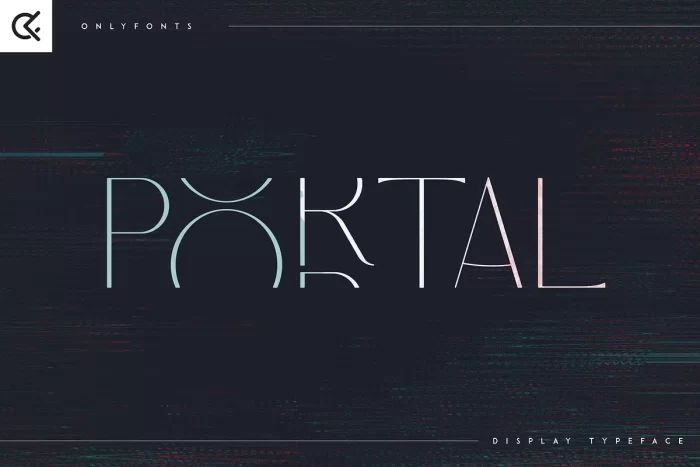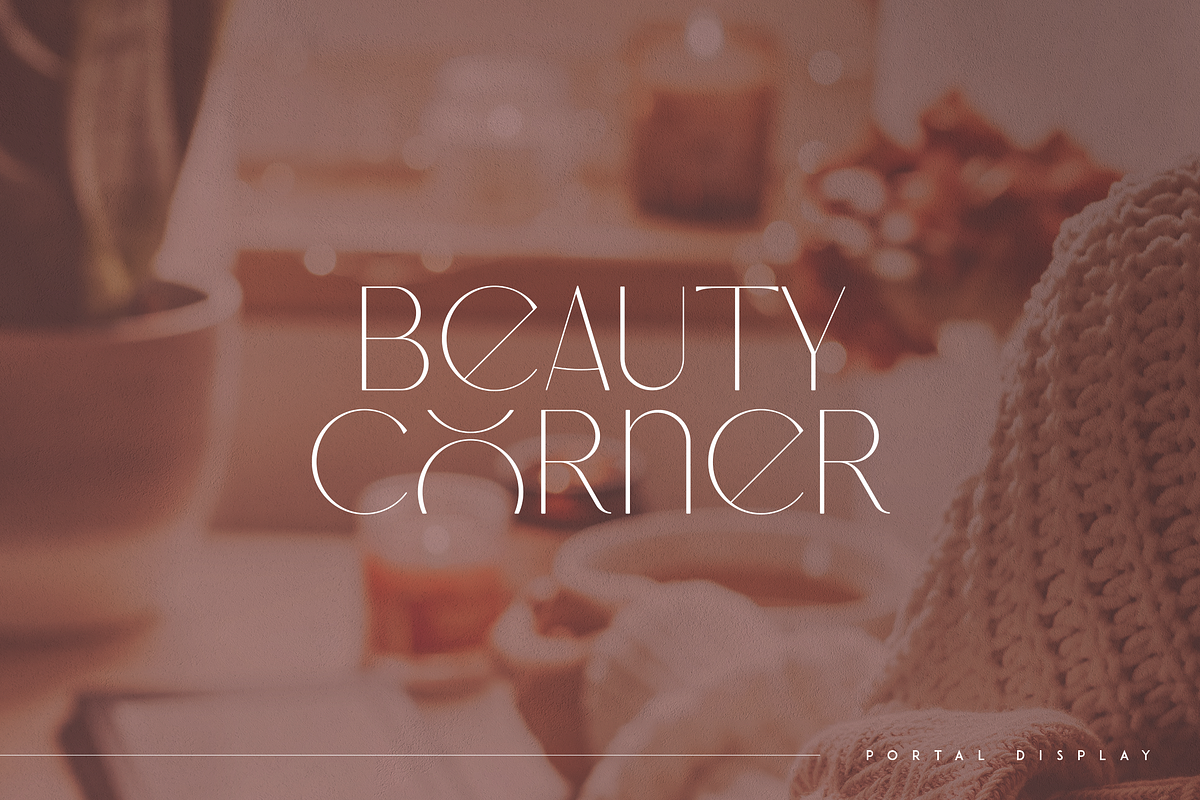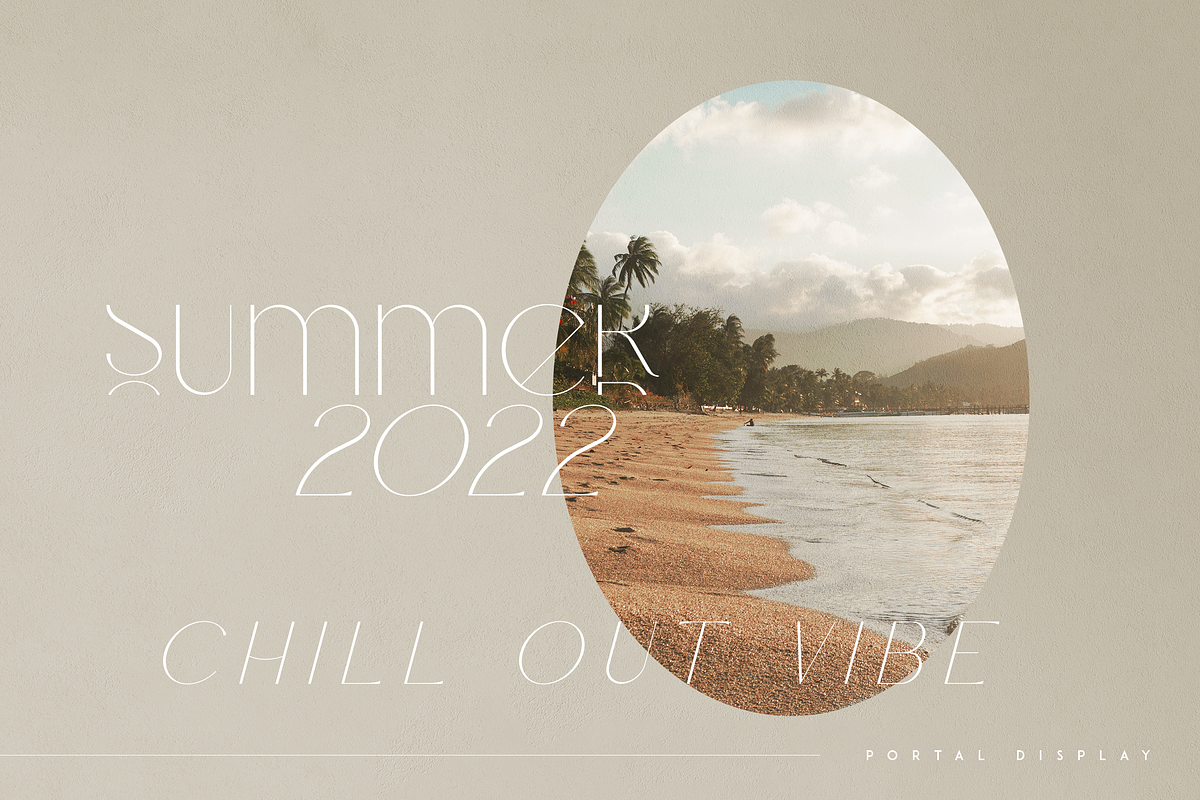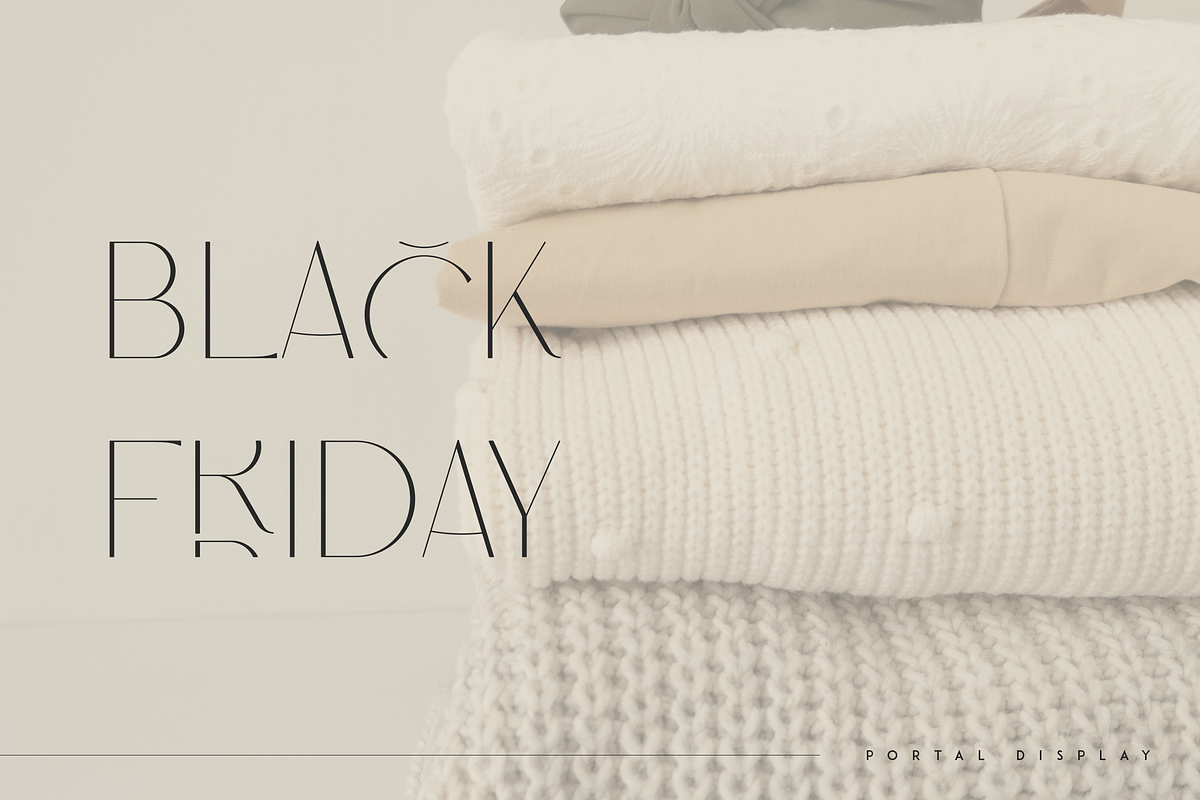
Portal Font
Portal is a creative display typeface with regular and italic fonts. It is creative and elegant font with multilingual support. It’s a very versatile font that works great in large and small sizes.
This font is perfect for branding projects, home-ware designs, product packaging, magazine headers – or simply as a stylish text overlay to any background image.
• Uppercase, numeral, punctuation & Symbol
• Multilingual support
Portal Display Typeface